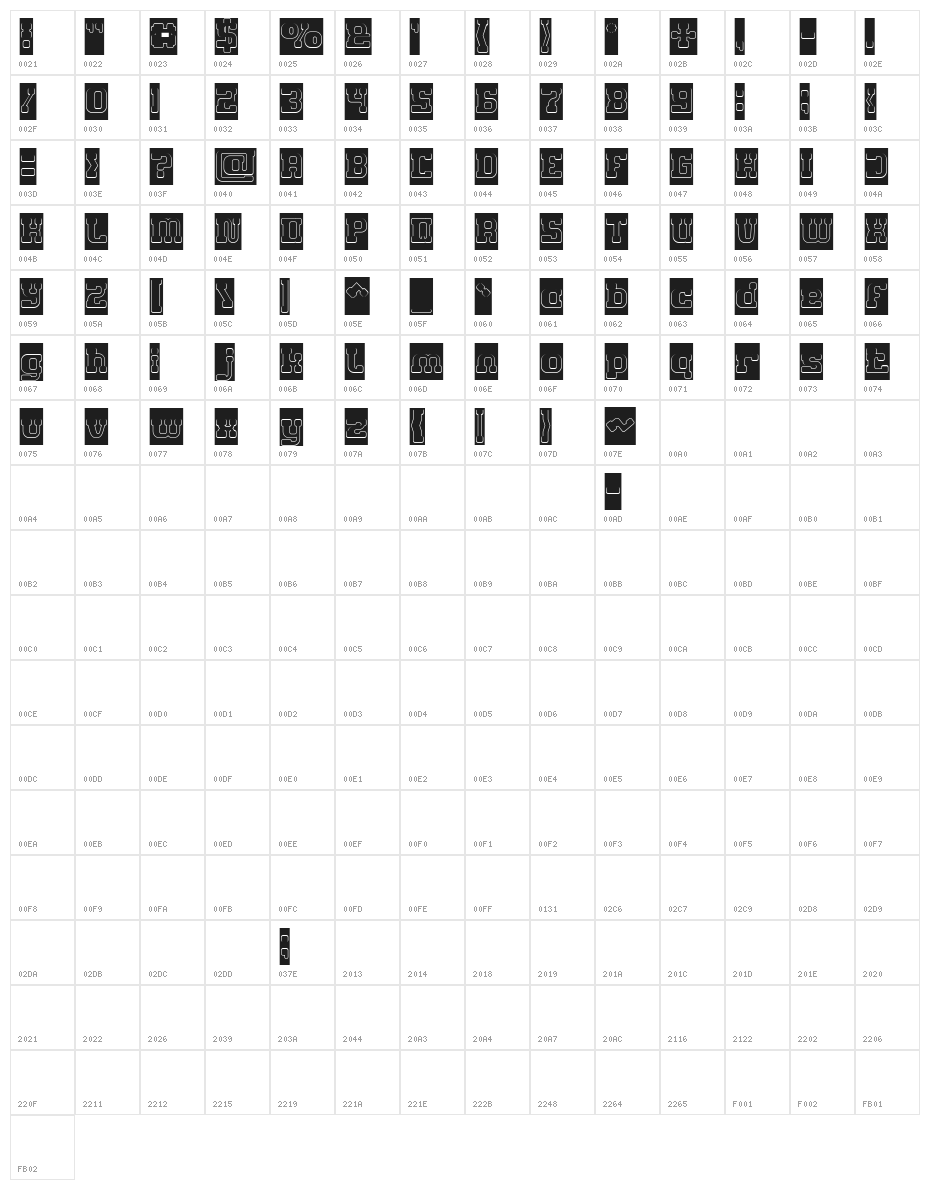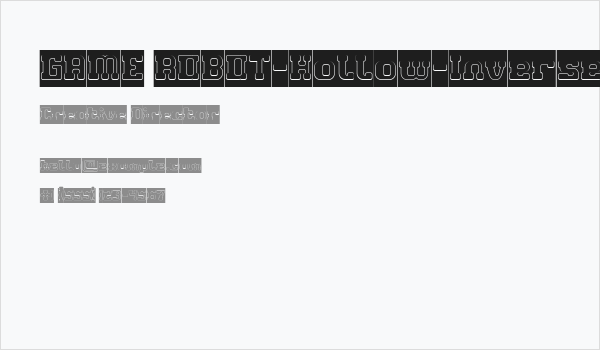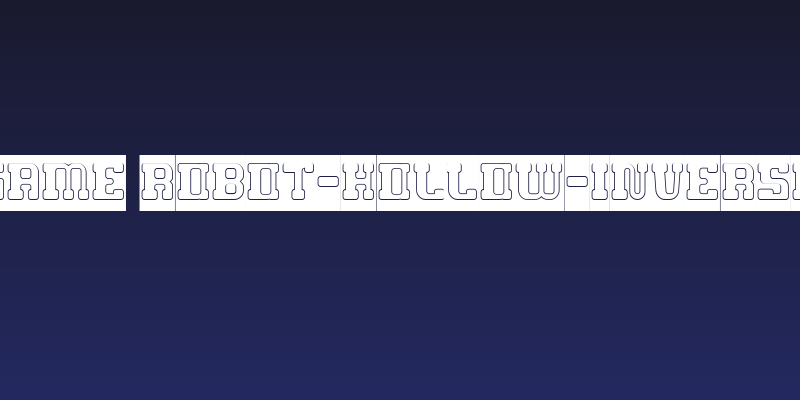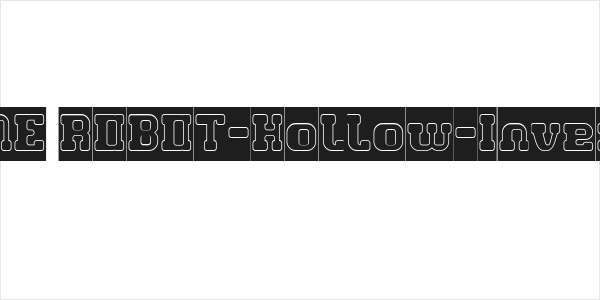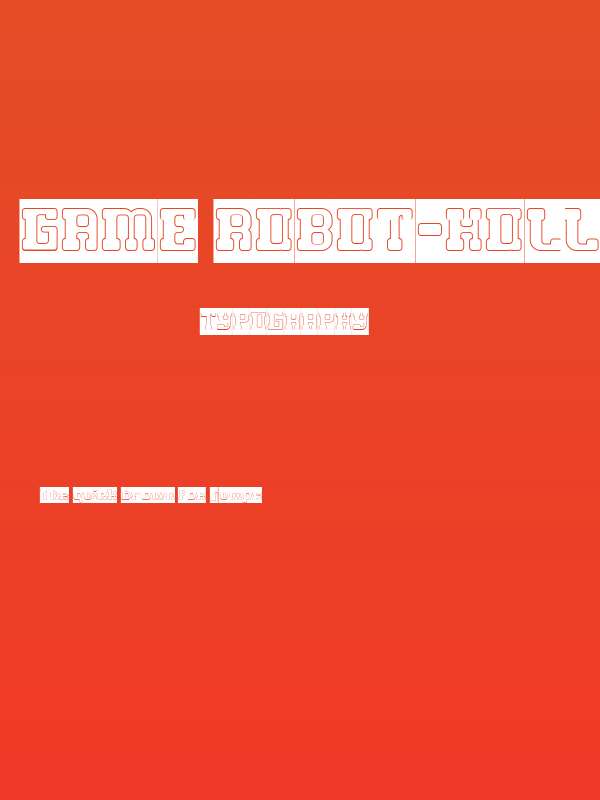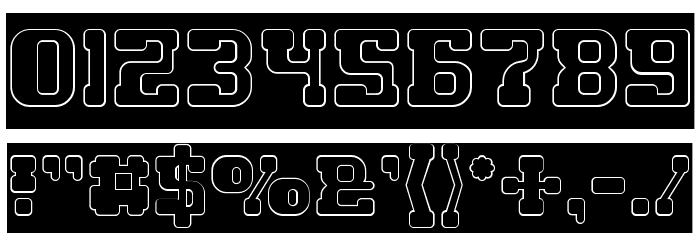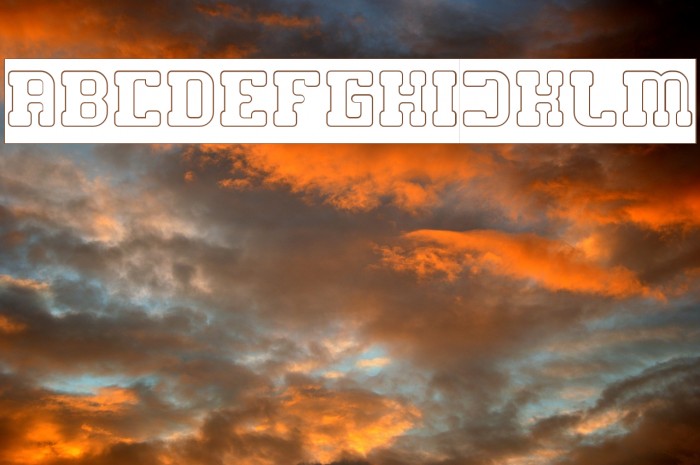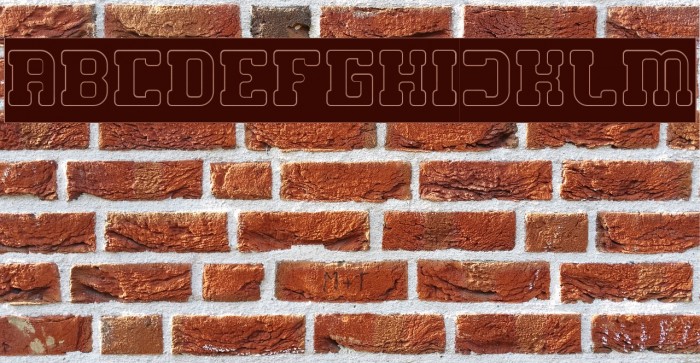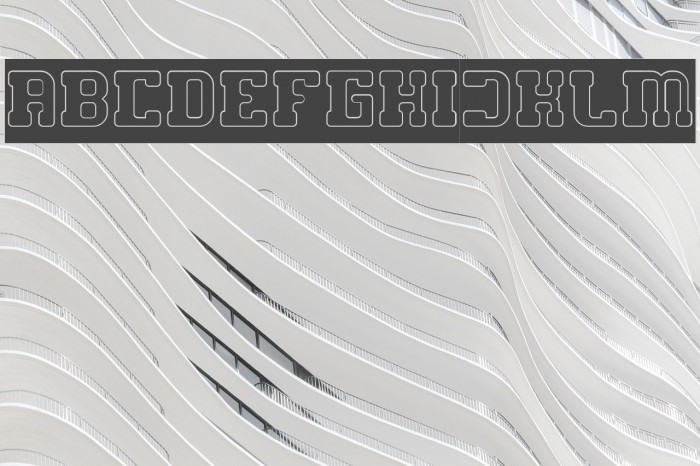
GAME ROBOT-Hollow-Inverse Font
GAME ROBOT-Hollow-Inverse Description
This font features a bold, hollow design with a futuristic and robotic aesthetic. The characters are outlined with a consistent thickness, creating a striking visual effect. The uppercase and lowercase letters maintain a uniform style, with rounded edges and geometric shapes that suggest a mechanical influence. Numbers and special characters follow the same design principles, ensuring cohesion across all elements. The font's hollow nature allows for creative use of background colors or textures to shine through, making it ideal for eye-catching designs.
| Overall Style | Futuristic, Robotic |
| Proposed Projects | Ideal for sci-fi themed posters, video game titles, tech branding, and futuristic product packaging. |